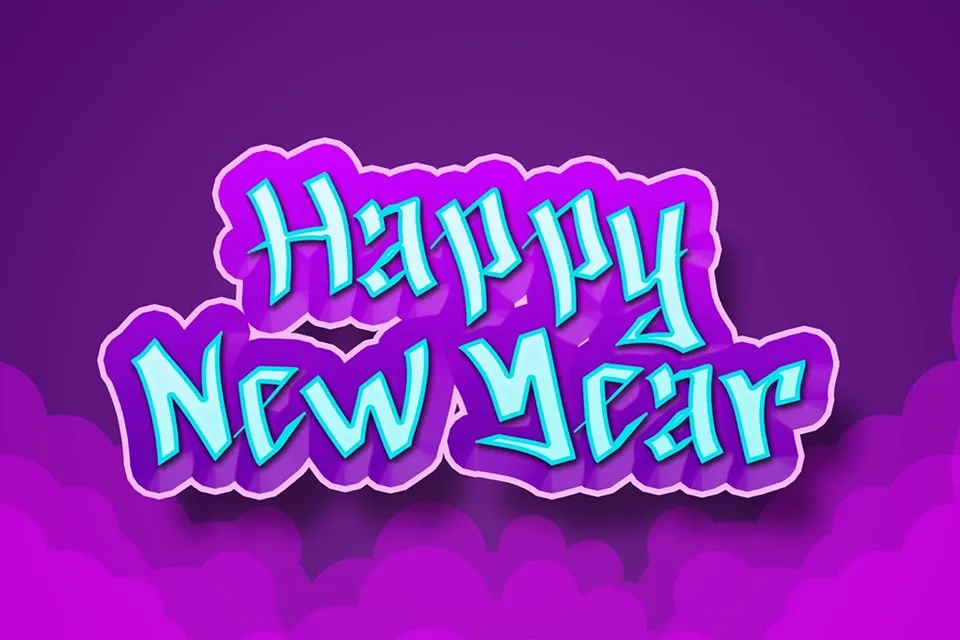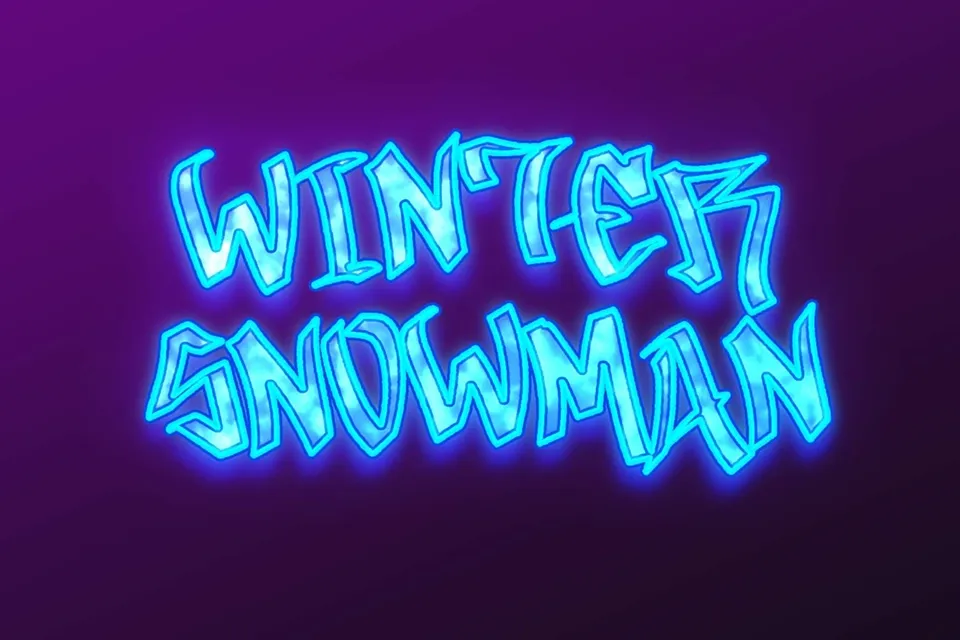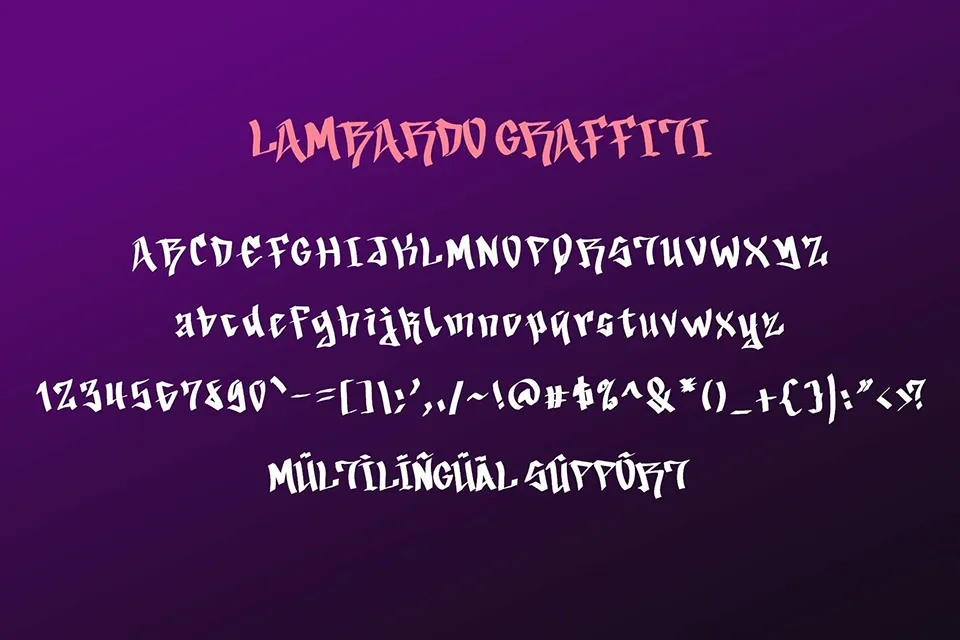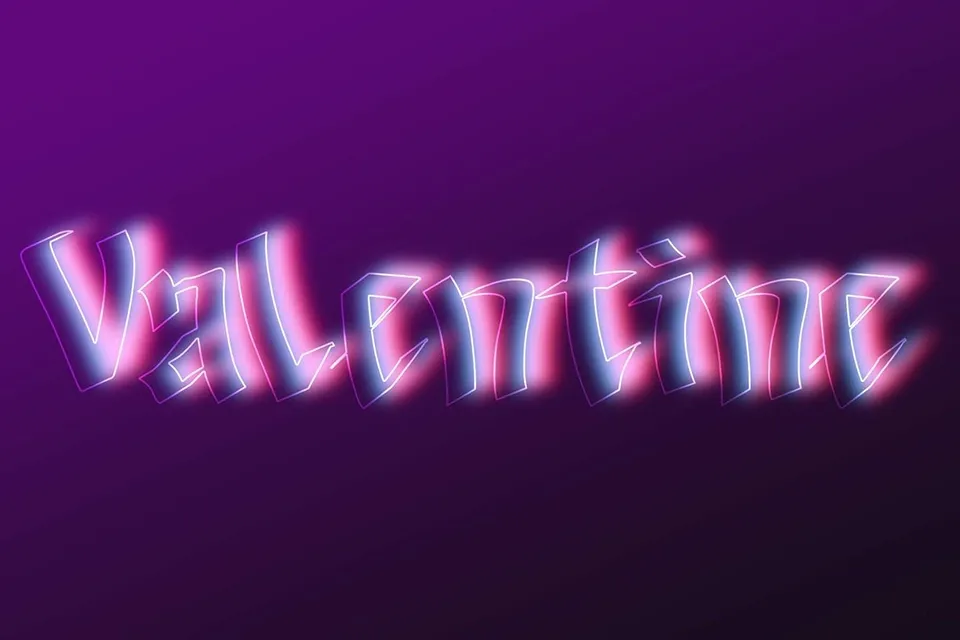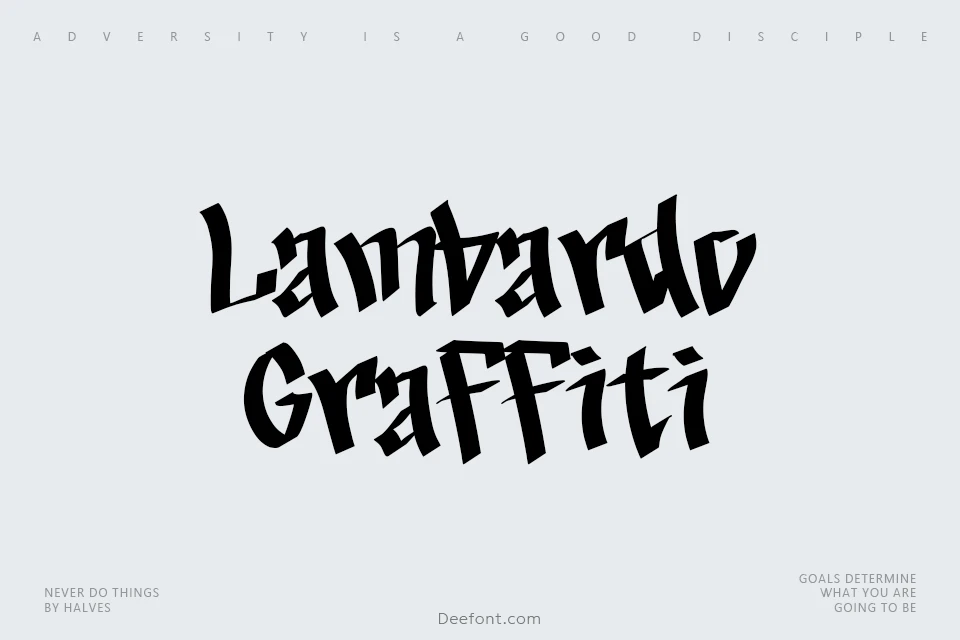
Lambardo Graffiti Font
Lambardo Graffiti Font, created by Yoga Letters, is a unique and elegant typeface capturing the essence of graffiti art. It features a complete set of uppercase and lowercase letters, numerals, and punctuation, along with multilingual support. This font is well-suited for projects demanding an urban or street art aesthetic, such as logos, banners, posters, branding, stickers, invitations, rock music concert materials, and mural-inspired designs. The demo version of Lambardo Graffiti is available for personal use, while a premium version offers full features and a commercial license for broader applications.